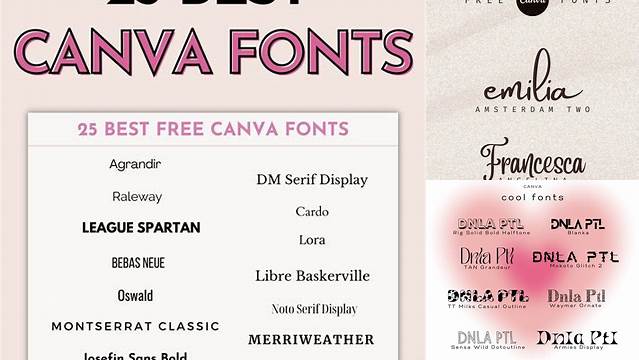
Cool Fonts On Canva: Free Picks For Fancy Designs
Hey guys! Looking to spice up your Canva designs with some seriously cool fonts? You've come to the right place. Canva is a treasure trove of amazing fonts, and the best part is, many of them are totally free! Let's dive into some of the best free fancy fonts you can use to make your projects pop. Whether you're creating social media graphics, presentations, or even just playing around, having the right font can make all the difference.
Canva's Font Library: An Overview
Canva boasts a huge font library, and navigating it can feel a bit overwhelming. But don't worry, we're here to break it down. You'll find everything from classic serifs to modern sans-serifs, and yes, plenty of fancy, decorative fonts too. When you're searching, keep in mind what kind of vibe you're going for. A sleek, minimalist design might benefit from a clean sans-serif, while a vintage-inspired project could shine with a script or serif font. The trick is to experiment and see what works best for your vision. Plus, Canva lets you upload your own fonts if you can't find exactly what you need, but for now, let's focus on the awesome free options already available!
Script Fonts for Elegant Designs
Script fonts are perfect for adding a touch of elegance and personality to your designs. Think wedding invitations, logos, or anything that needs a handwritten feel. One of the most popular free script fonts on Canva is "Great Vibes." It's a beautiful, flowing script that looks great for headings and titles. Another fantastic option is "Pacifico," a casual yet stylish script that's perfect for adding a friendly touch to your projects. When using script fonts, remember readability! Don't use them for large blocks of text, as they can be difficult to read. Instead, use them sparingly for emphasis and impact. Combine them with a simpler sans-serif font for body text to create a balanced and visually appealing design.
Serif Fonts for a Classic Look
If you're aiming for a classic, timeless look, serif fonts are your best friend. These fonts have little strokes or "serifs" at the end of each letter, giving them a formal and traditional feel. Canva offers a wide range of free serif fonts, including the ever-popular "Playfair Display." This font is elegant and refined, perfect for headings and titles. Another great option is "Lora," a well-balanced serif font that works well for both headings and body text. Serif fonts are incredibly versatile and can be used in a variety of designs, from books and magazines to websites and logos. Just remember to choose a font that complements your overall design aesthetic and ensures readability. A well-chosen serif font can add a touch of sophistication and credibility to your projects.
Sans-Serif Fonts for Modern Designs
For a more modern and minimalist aesthetic, sans-serif fonts are the way to go. These fonts lack the serifs found in traditional serif fonts, giving them a cleaner and more contemporary look. Canva has a ton of free sans-serif fonts to choose from, including the always reliable "Open Sans." It's a highly versatile font that works well for just about anything. Another excellent option is "Lato," a sleek and modern font that's perfect for websites and digital designs. When using sans-serif fonts, focus on clarity and readability. These fonts are often used for body text, so make sure they're easy on the eyes. Combine them with a bolder font for headings to create a visually appealing and balanced design. Sans-serif fonts are a staple in modern design and can help you create a clean, professional look.
Display Fonts for Eye-Catching Headlines
Need to grab attention? Display fonts are designed to do just that! These fonts are often bolder, more decorative, and more unique than your standard serif or sans-serif fonts. Canva has a great selection of free display fonts, including the quirky "Bangers," a fun and energetic font that's perfect for posters and flyers. Another eye-catching option is "Luckiest Guy," a bold and playful font that's sure to make a statement. When using display fonts, remember to use them sparingly. They're best used for headings and titles, not for large blocks of text. Combine them with a simpler font for body text to ensure readability. Display fonts are a great way to add personality and visual interest to your designs, but use them wisely!
Combining Fonts Like a Pro
One of the keys to great design is knowing how to combine fonts effectively. A good rule of thumb is to choose one or two fonts and stick with them throughout your design. Too many fonts can make your design look cluttered and confusing. When combining fonts, look for fonts that complement each other. For example, you might pair a bold serif font for headings with a clean sans-serif font for body text. Or you could combine a script font for emphasis with a simple sans-serif font for readability. Canva makes it easy to experiment with different font combinations, so don't be afraid to try new things! There are also plenty of online resources that can help you find fonts that pair well together. With a little practice, you'll be combining fonts like a pro in no time!
Finding Hidden Gem Fonts on Canva
Canva's font library is vast, and sometimes the best fonts are the ones you have to dig a little to find. Spend some time exploring different categories and trying out different search terms. You might be surprised at what you discover! Look for fonts that are a little bit different or unexpected. These can be a great way to make your designs stand out from the crowd. Don't be afraid to experiment and try new things. The more you explore, the better you'll become at finding those hidden gem fonts that can take your designs to the next level. You can also check out Canva's design tutorials and blog posts for inspiration and font recommendations. Happy hunting!
Using Font Filters for Faster Results
Canva offers font filters that can help you narrow down your search and find the perfect font more quickly. You can filter by style (serif, sans-serif, script, etc.), weight (bold, light, regular), and even language. These filters can be a huge time-saver when you're looking for a specific type of font. For example, if you're looking for a bold sans-serif font for a heading, you can simply filter by style and weight to see only the fonts that meet your criteria. The more you use these filters, the better you'll become at finding the right fonts for your projects. So next time you're searching for a font on Canva, be sure to take advantage of these handy filters!
Uploading Your Own Fonts to Canva
While Canva has a great selection of free fonts, sometimes you might want to use a font that's not available in their library. The good news is that Canva allows you to upload your own fonts! This is a great way to add a personal touch to your designs or to use a specific font that's part of your brand identity. To upload a font, simply go to your Brand Kit in Canva and upload the font file (usually a .ttf or .otf file). Once the font is uploaded, it will be available for you to use in all of your designs. Keep in mind that you need to have the proper license to use any font that you upload to Canva. But with this feature, the possibilities are endless!
Font Inspiration for Your Next Project
Need some font inspiration for your next project? Browse design blogs and websites to see how other designers are using fonts. Look for examples of typography that you find appealing. Experiment with different font combinations to find what inspires you. Font inspiration can spark creativity and help you create innovative designs.